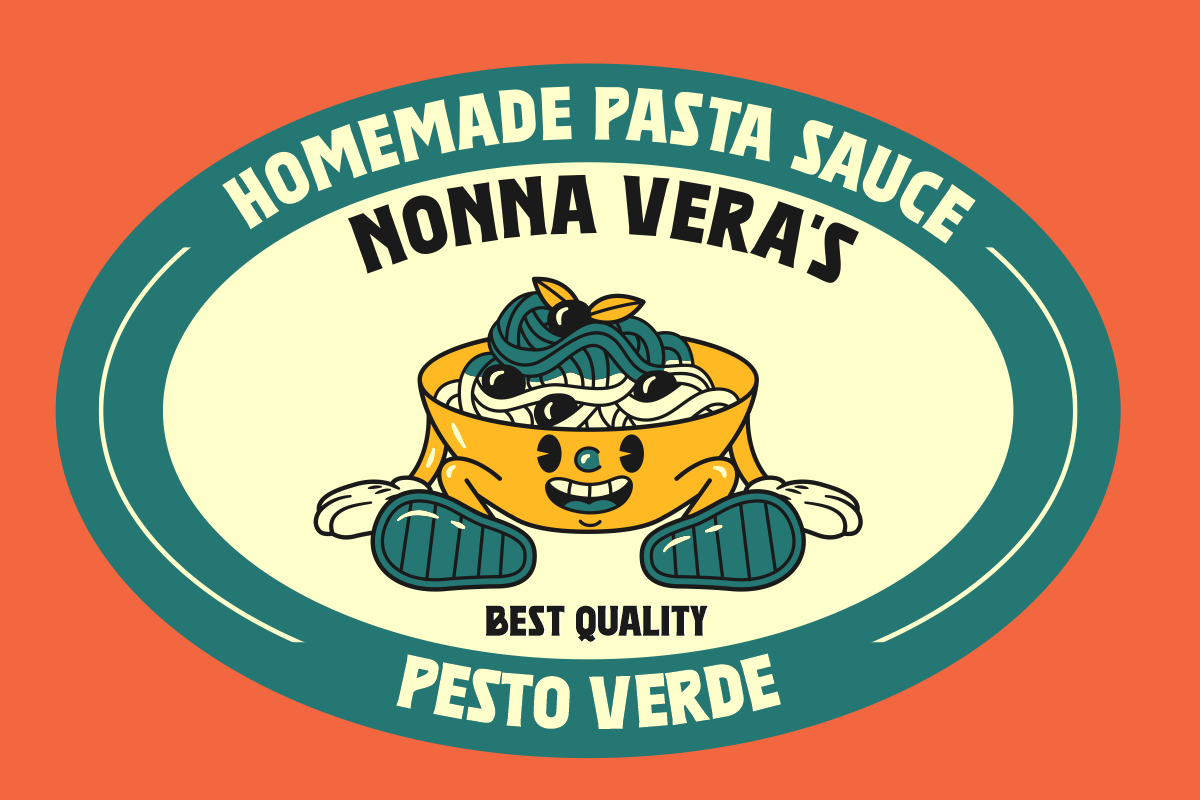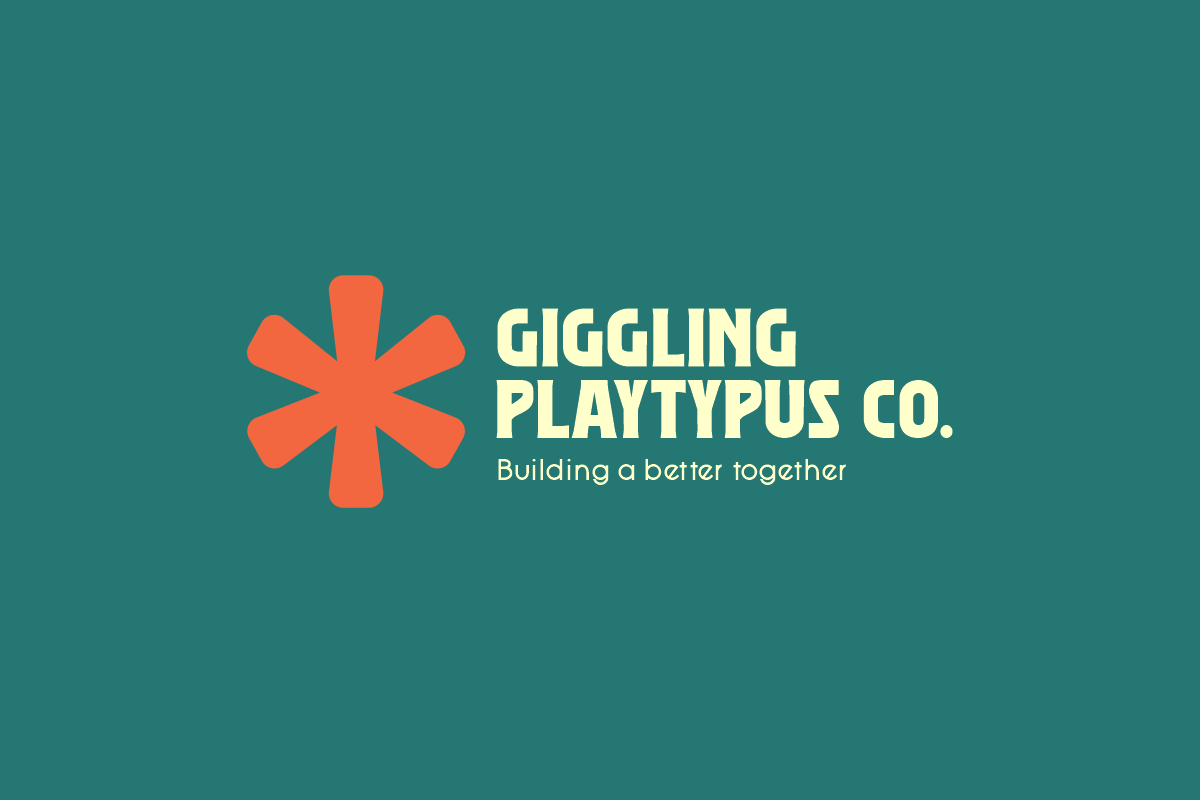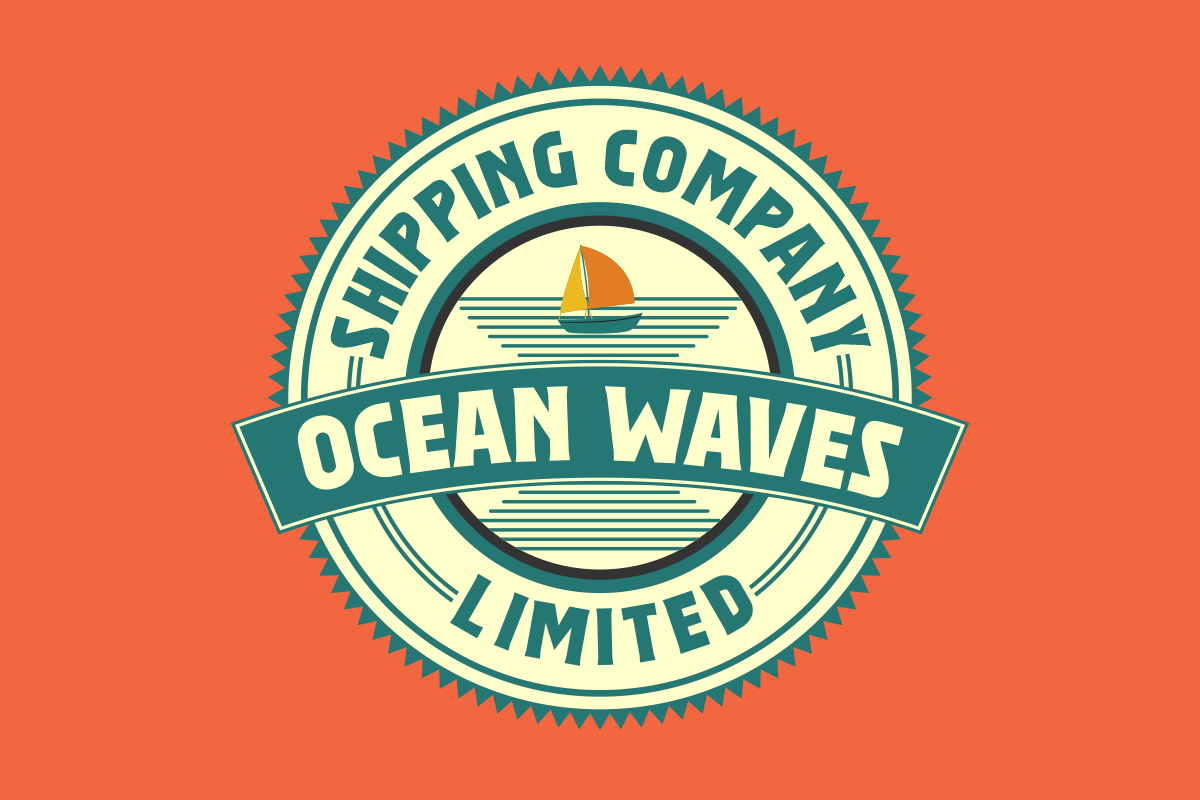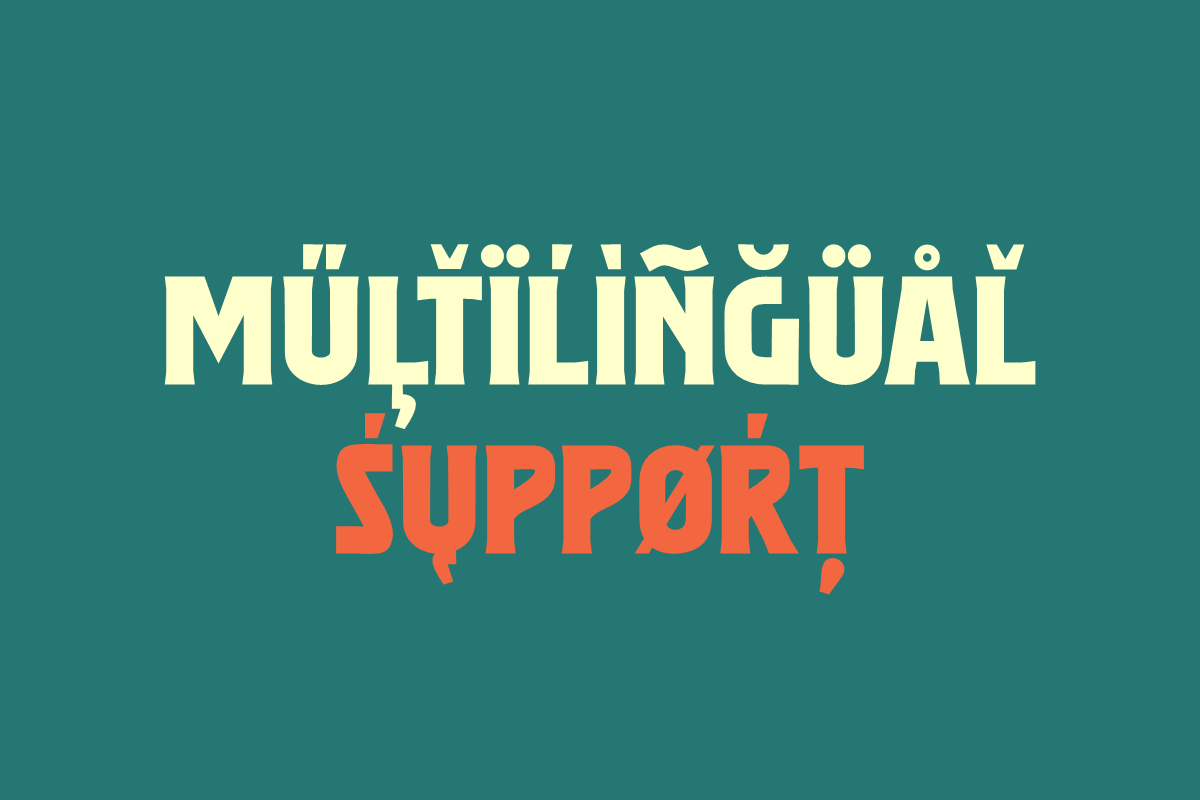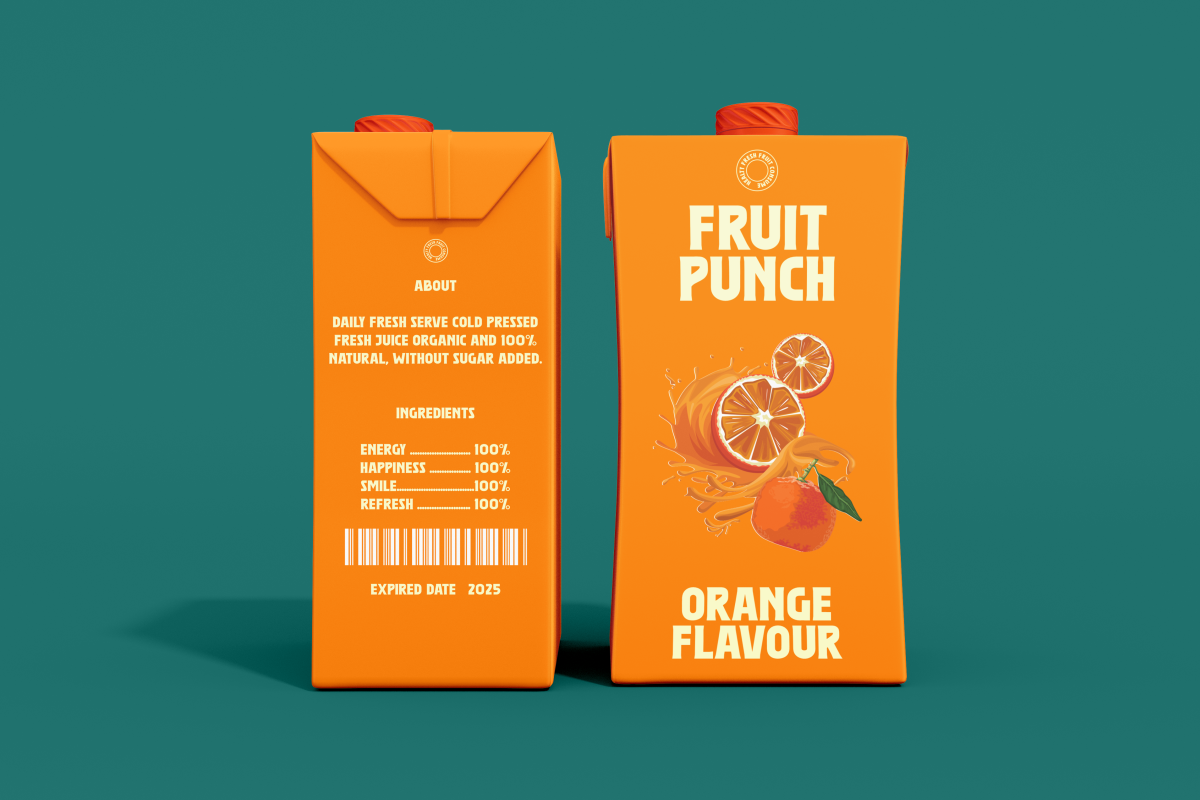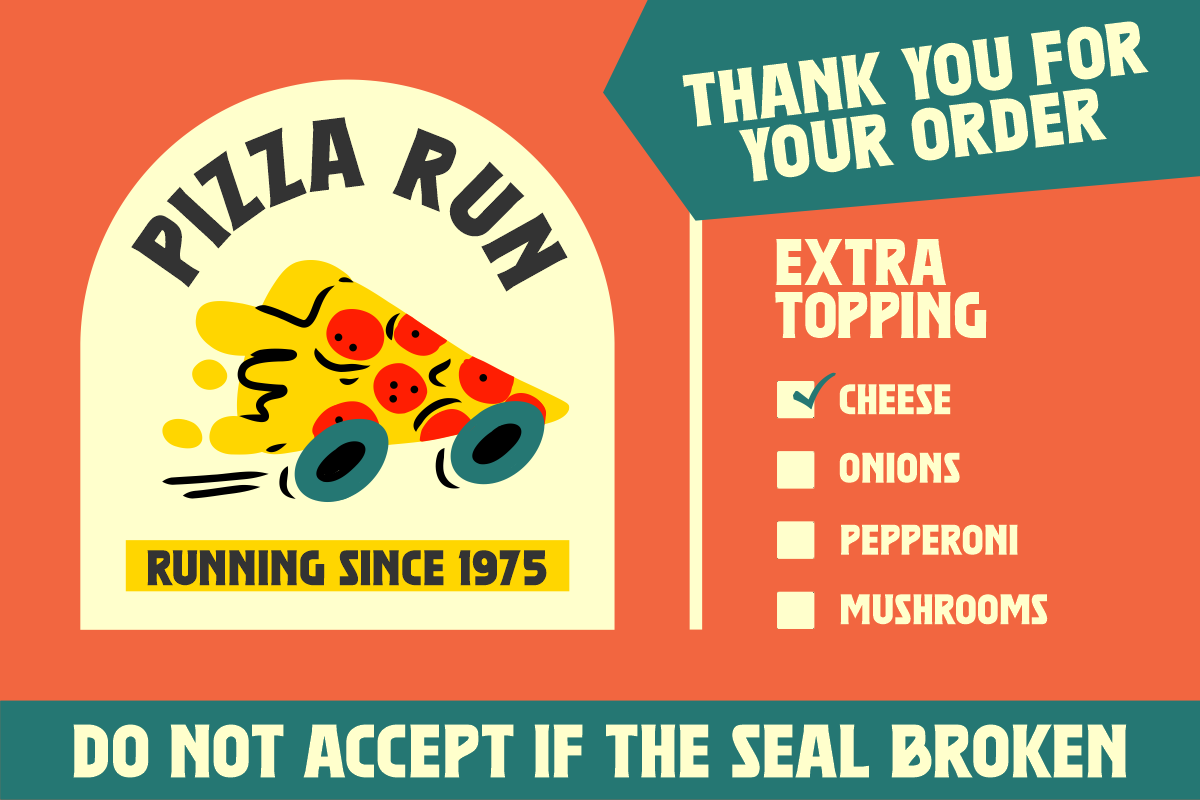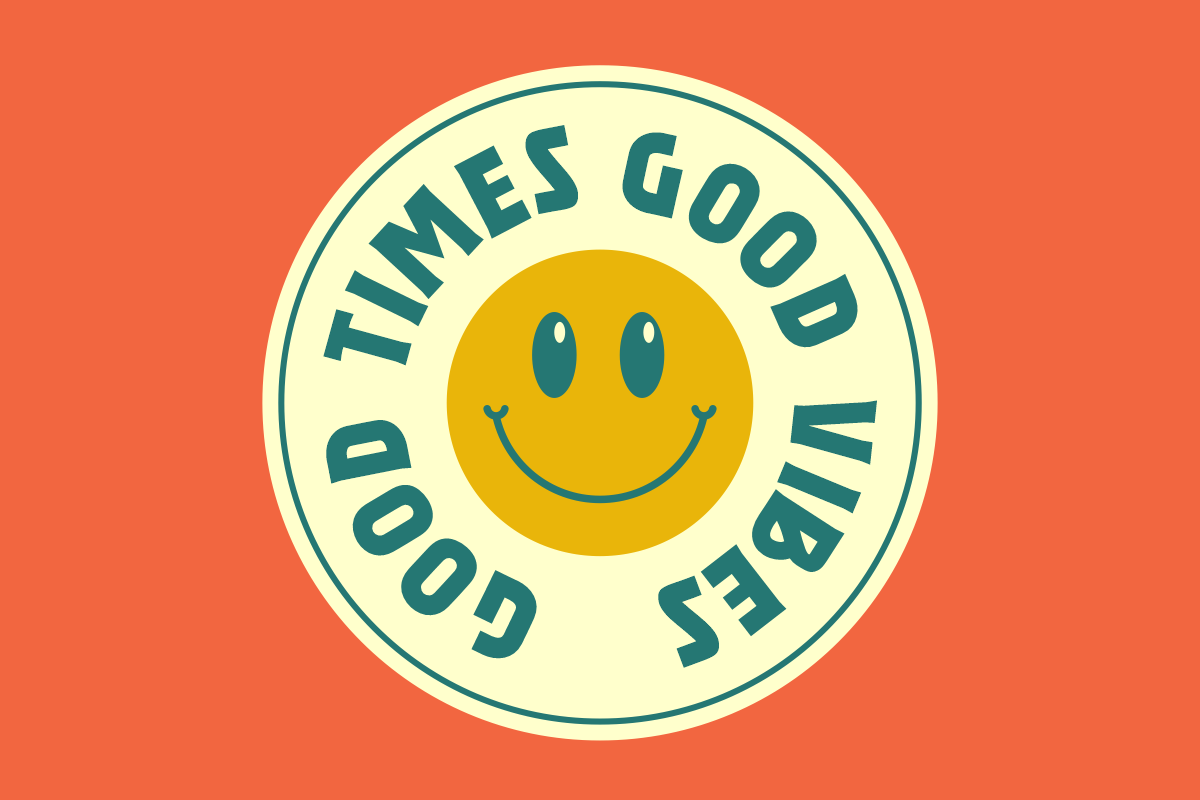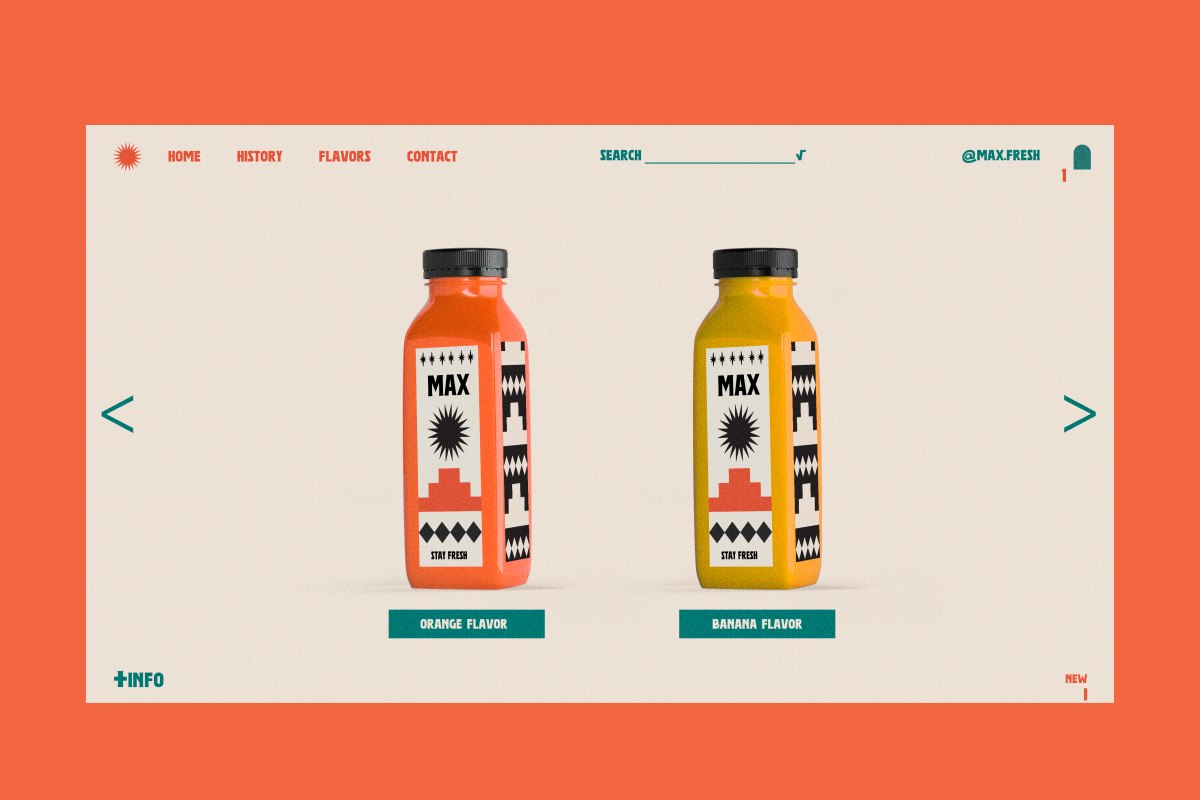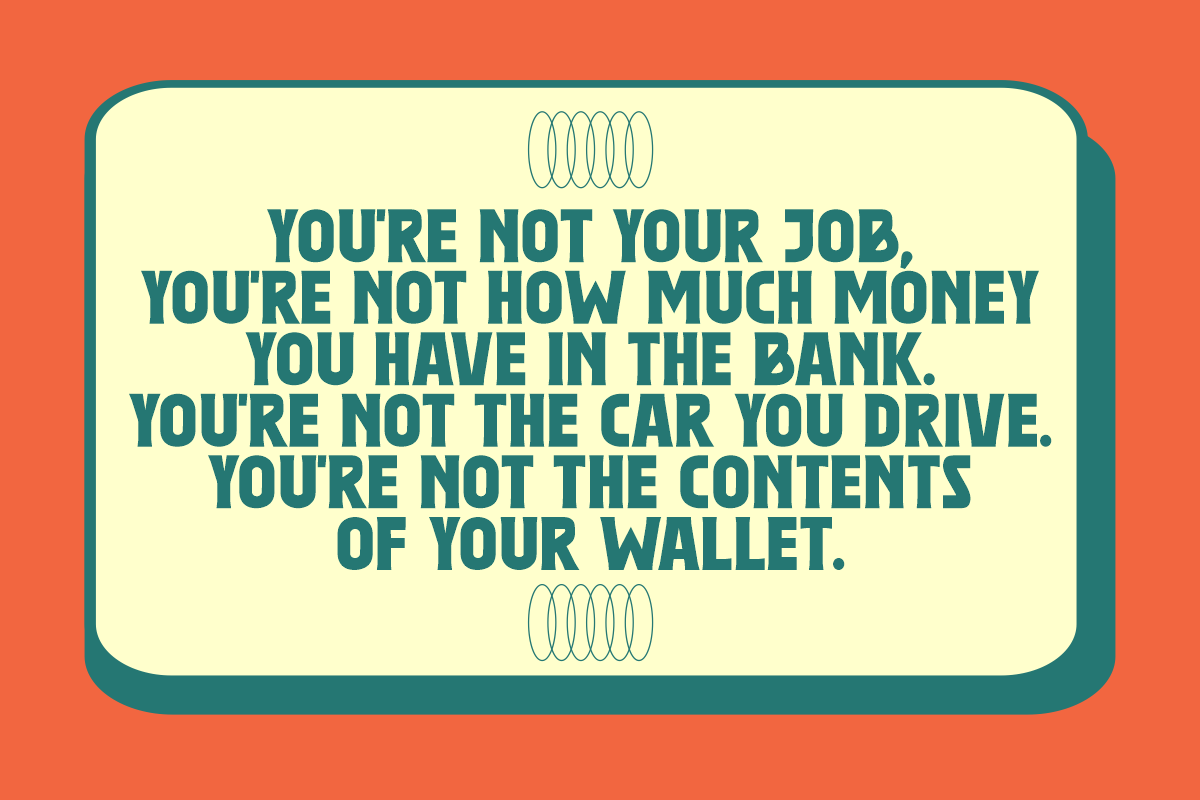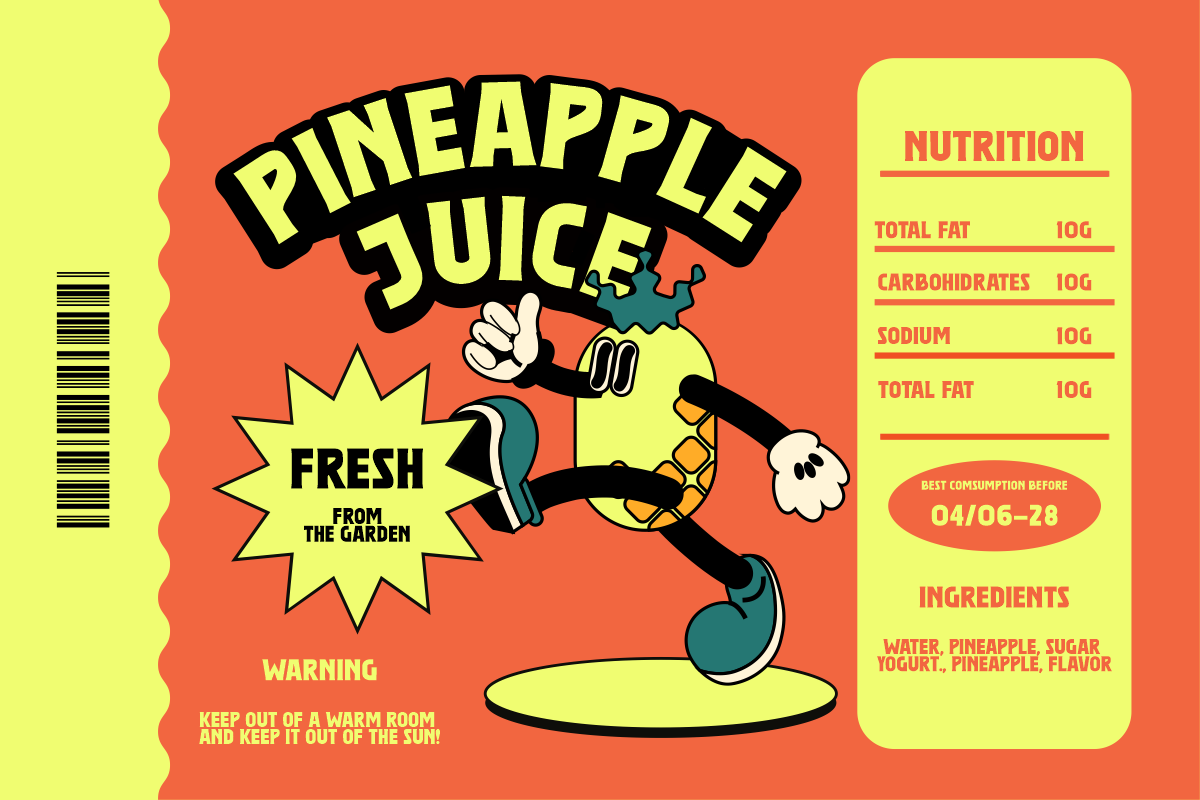
Lemon Mocktail – Display Serif
This font is very suitable to be applied in various aspects of design, and your branding. It’s perfect for logos, branding, title, social media posts, advertisements, product packaging, product designs, label, photography, watermark, special event, magazine, web designs, etc.